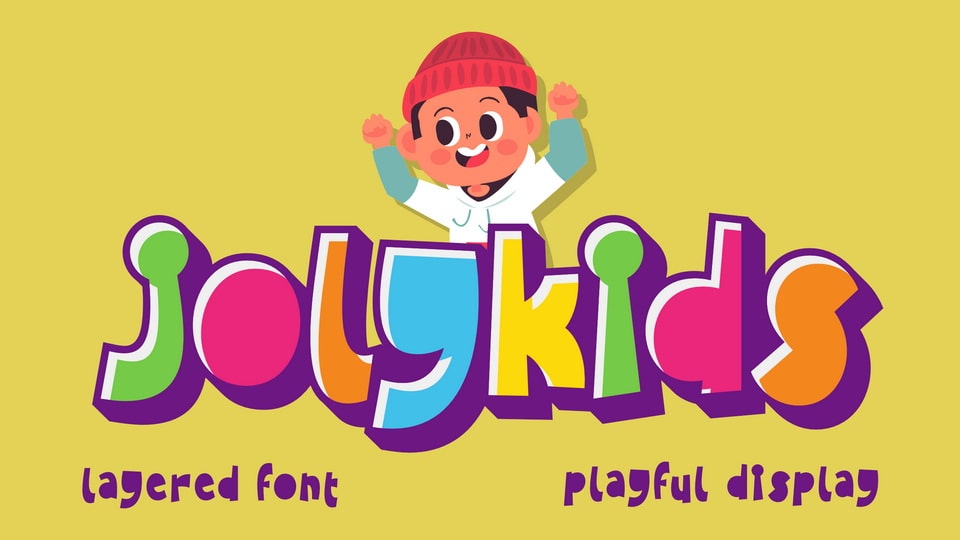
Download Jolykids font, a fun and colorful layered display typeface that sparks creativity! Perfectly crafted for children’s projects, this playful font features bold, bouncy letters.